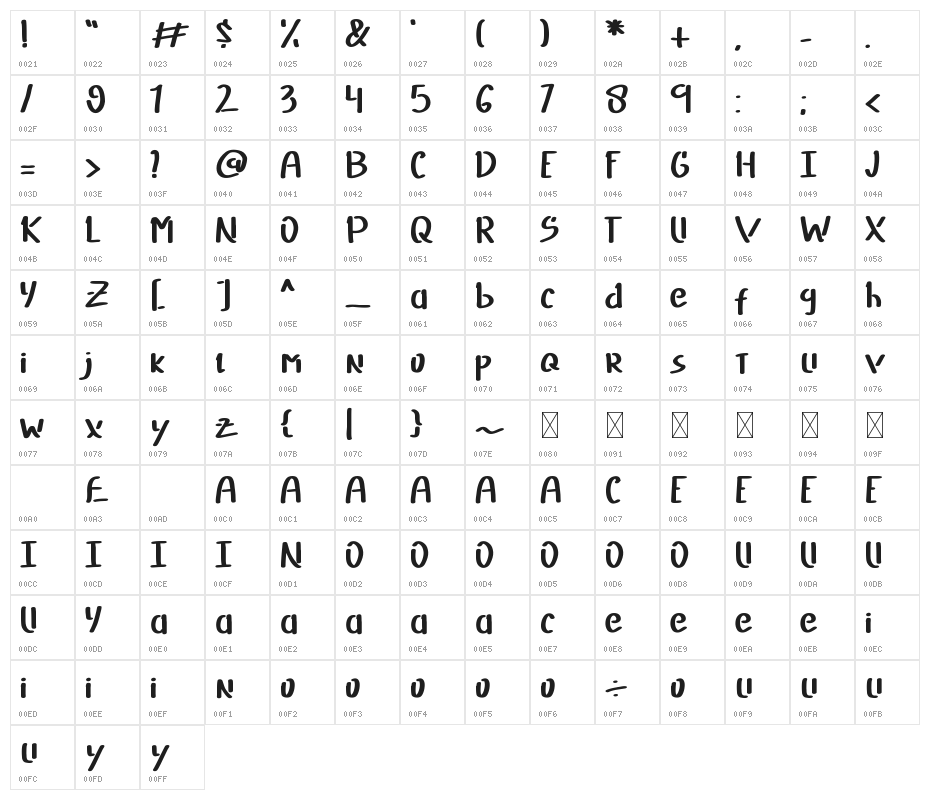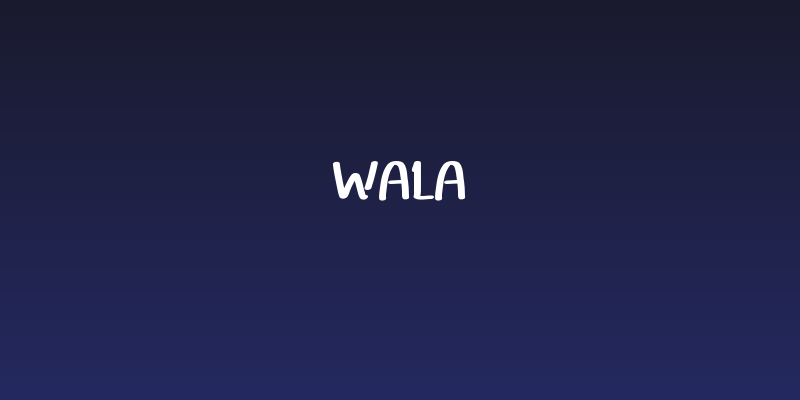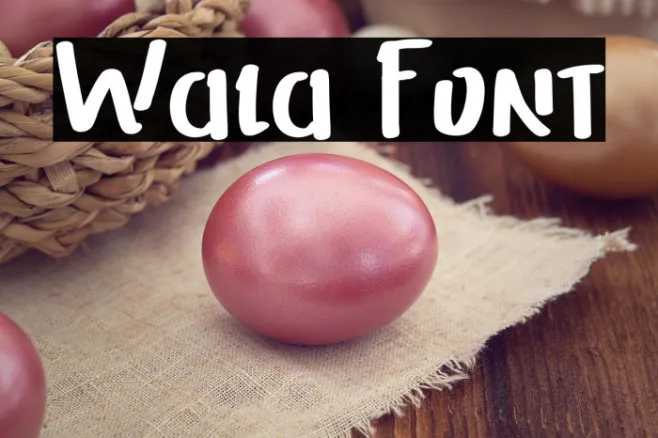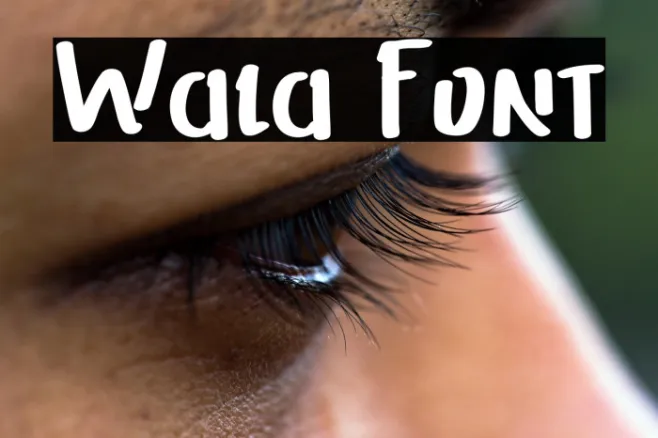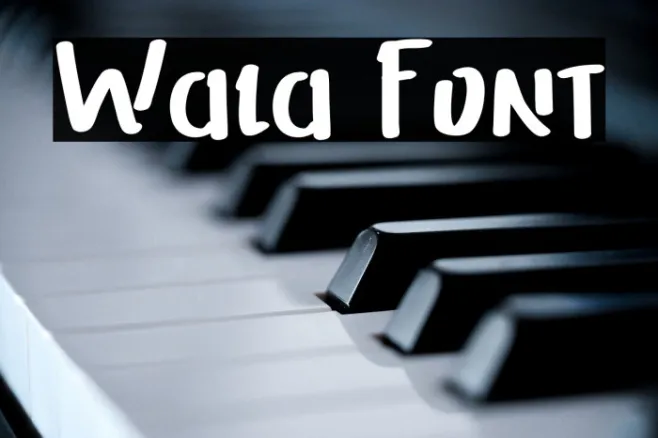
Wala Font
Wala Description
This font features a playful and bold handwritten style, characterized by its rounded and slightly irregular letterforms. The strokes are thick and consistent, giving it a strong presence. The uppercase and lowercase letters maintain a cohesive look, with a casual and friendly vibe. The numbers and special characters are designed to match the overall aesthetic, ensuring uniformity across all glyphs. This font is ideal for projects that require a personal touch and a sense of approachability.
| Overall Style | Playful, Casual |
| Proposed Projects | Perfect for greeting cards, children's books, playful branding, and social media graphics. |